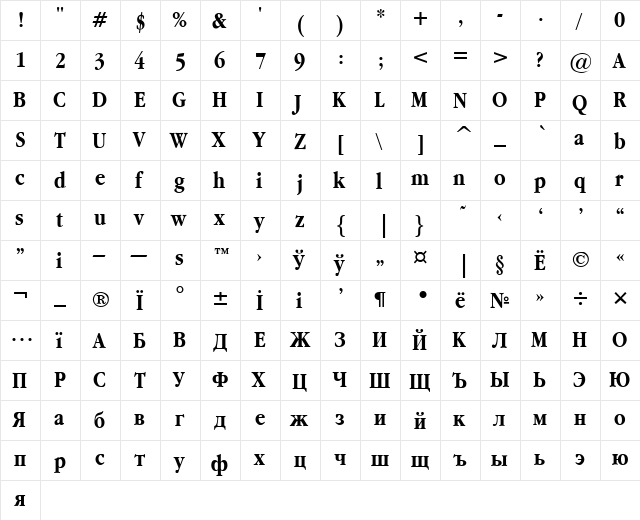
Garamond Narrow Bold
Design Context for Garamond Narrow Typeface
Garamond Narrow is a composed and adaptable typeface that performs quietly and consistently across a wide range of design contexts. The heavy weight commands attention and anchors typographic hierarchies. Its narrow stance lets it pack a punch even in space-constrained designs.
Pro Tip: Use Garamond Narrow in both headline and body roles to test its range before committing to a single application.